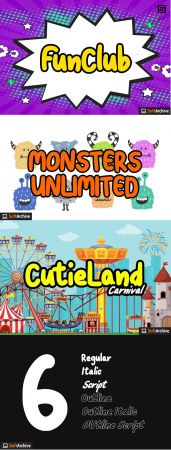
DesignOptimal - FunClub - Lovely & Playful Handwritten Kids Font
DesignOptimal.com - FunClub - Lovely & Playful Handwritten Kids Font
FunClub - the lovey & playful handwritten fonts inspired from kids doodles & sketchbooks, completely handmade and developed with perfection